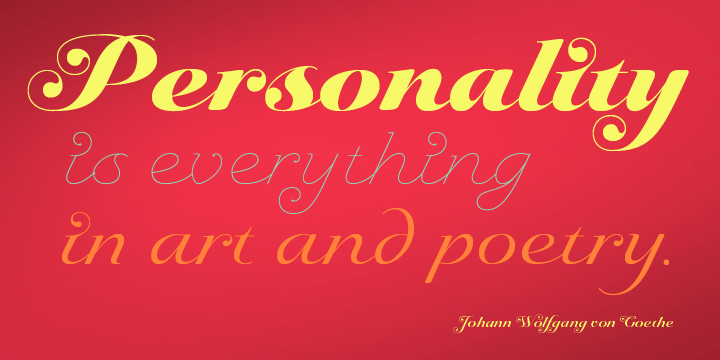
Sildetas is an elegant high-contrast script face.
Sildetas was conceived as non-connected, high-contrast and ultra heavy script, as best exemplified by the Black weight. However, it was too much of a temptation to design a hairline variant, and this exploration gave the family’s lighter weights an elegant, graceful feel. The script was modified further to use connected letterforms as the primary glyphs. With its unique swirled ball terminals, this versatile script draws immediate attention. The face glides and flows across the page and the swirling ball terminals provide an interesting diversion to the flow. The lighter weights have an almost spencerian look. More…